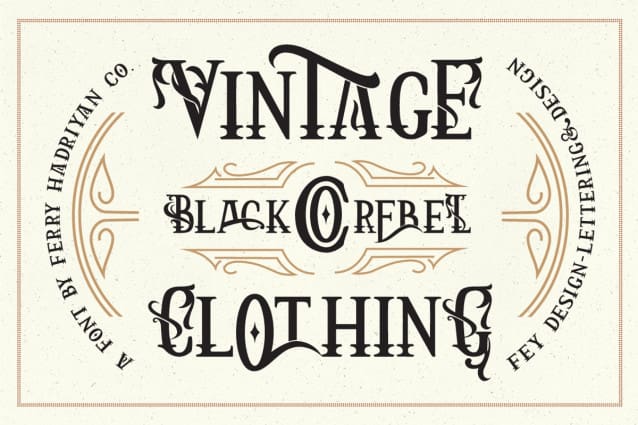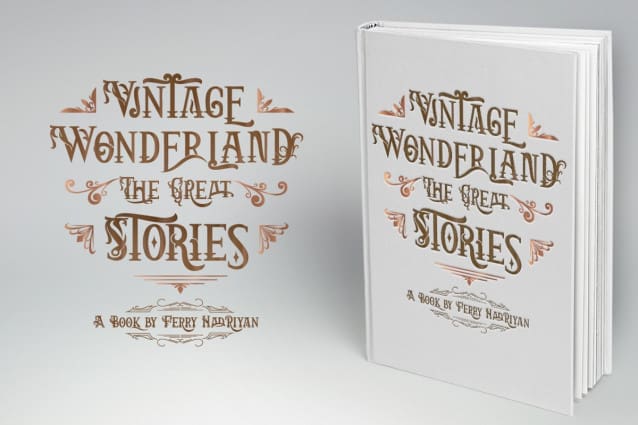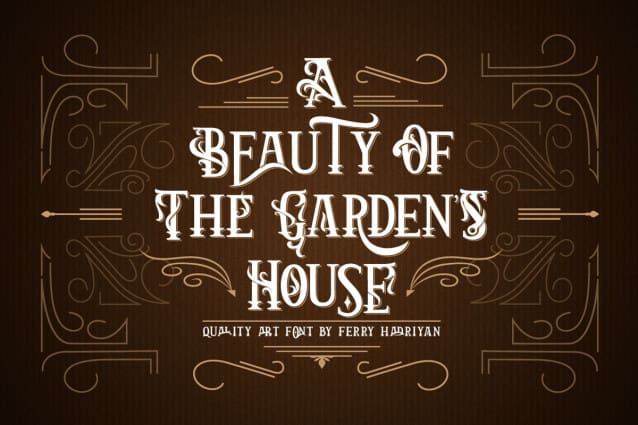
Arthouse Vintage Font
Arthouse Vintage Font is Display font with Vintage Art style,so much feature OpenType with standard ligatures, Discreationary Ligatures, Stylistic Set, Decorative, etc, Suitable for design, element design, wedding, event, t-shirt, logo, badges, sticker, and awesome work, etc…